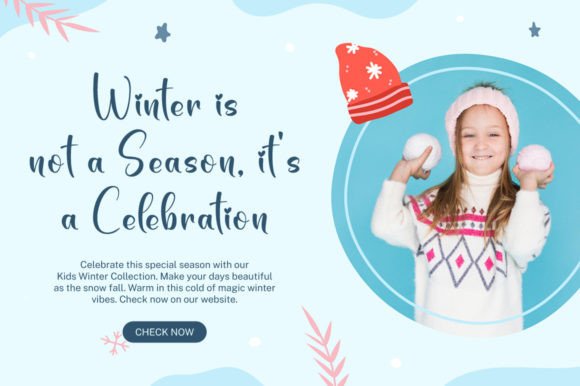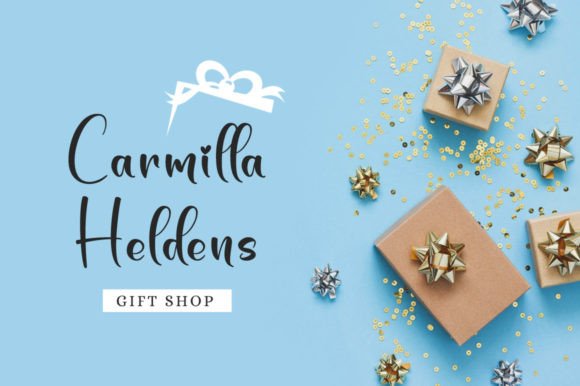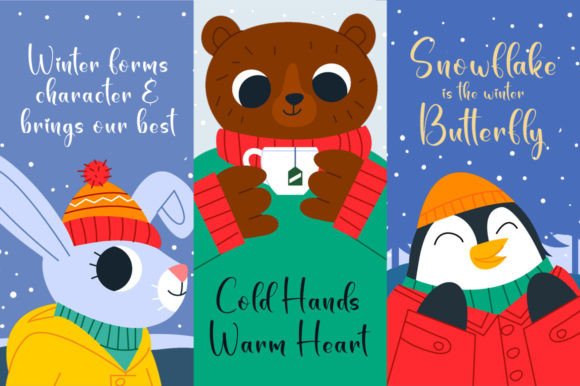
Winterland Font
About Winterland Handwritten Font
Winterland Handwritten Font is a lovely and timeless script typeface designed to add elegance and personality to your creative projects. With smooth curves and handcrafted charm, it combines classic beauty with modern usability. Because of its versatile structure, Winterland Handwritten Font is perfect for logos, branding, quotes, invitations, product packaging, and greeting cards.
A Lovely Typeface with Timeless Charm
Handwritten fonts often provide warmth and character, and Winterland HandwrittenFont does exactly that. Its elegant strokes create a sophisticated yet approachable style that fits a wide range of projects. In addition, its timeless design ensures that your work remains stylish across seasons and trends.
Perfect Typeface for Logos and Branding
For businesses and creatives seeking distinction, Winterland HandwrittenFont is an excellent option. For example, it can transform a brand name into a memorable and stylish logo. Moreover, it works beautifully on product packaging, merchandise, and social media graphics, adding sophistication while staying readable.
A Script Typeface for Quotes and Invitations
Winterland HandwrittenFont also shines in personal and event projects. From motivational quotes to wedding invitations, it adds an elegant touch that makes designs feel more authentic. Furthermore, it works wonderfully on thank-you cards, seasonal greetings, and event stationery, making every piece special.
Flexible Across Print and Digital Media
Another strength of Winterland HandwrittenFont is its adaptability across platforms. In print, it looks sharp on posters, flyers, and magazines. Digitally, it integrates seamlessly into blogs, websites, and online shops. Since it scales well from small details to large displays, it is equally effective for business cards and banners.